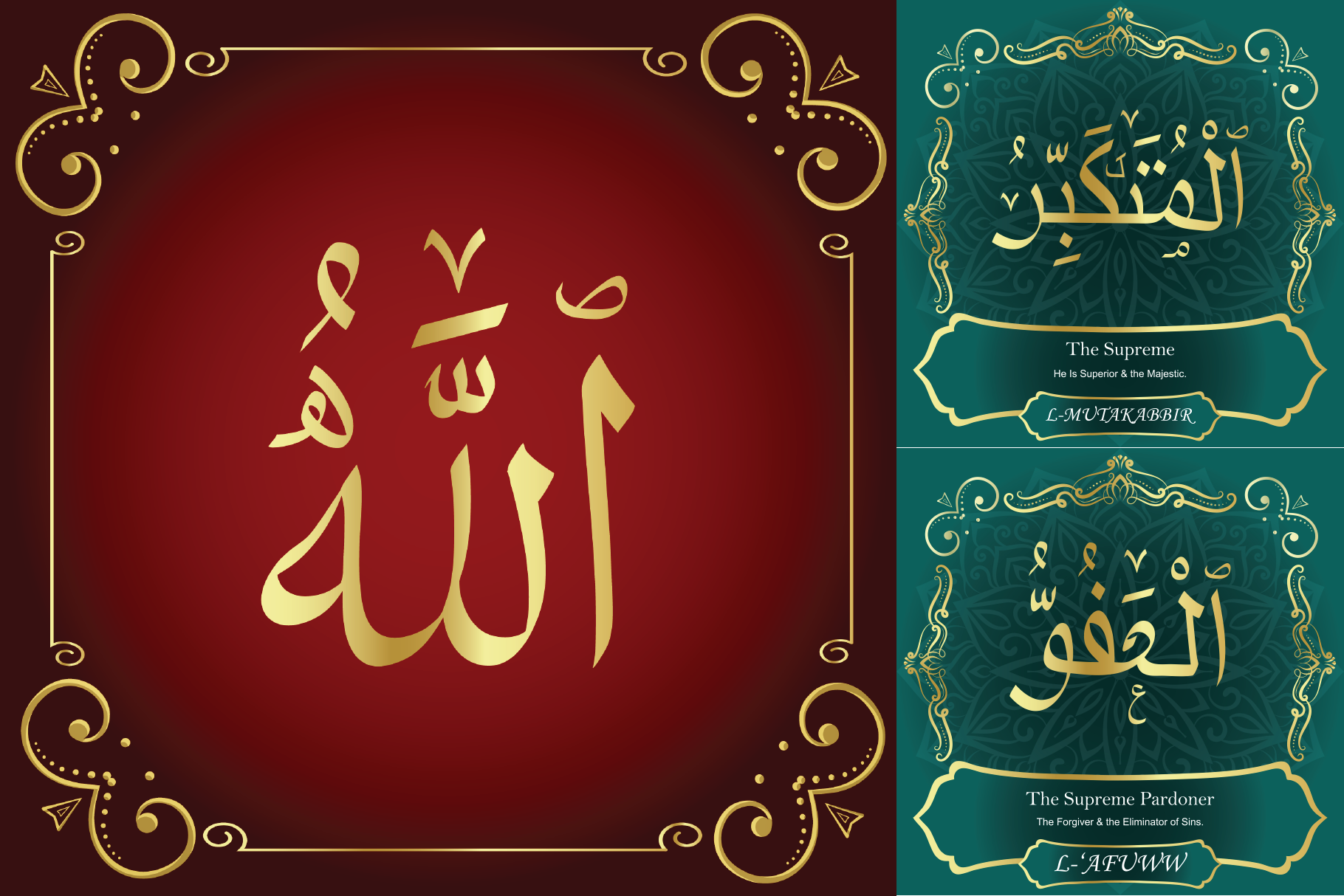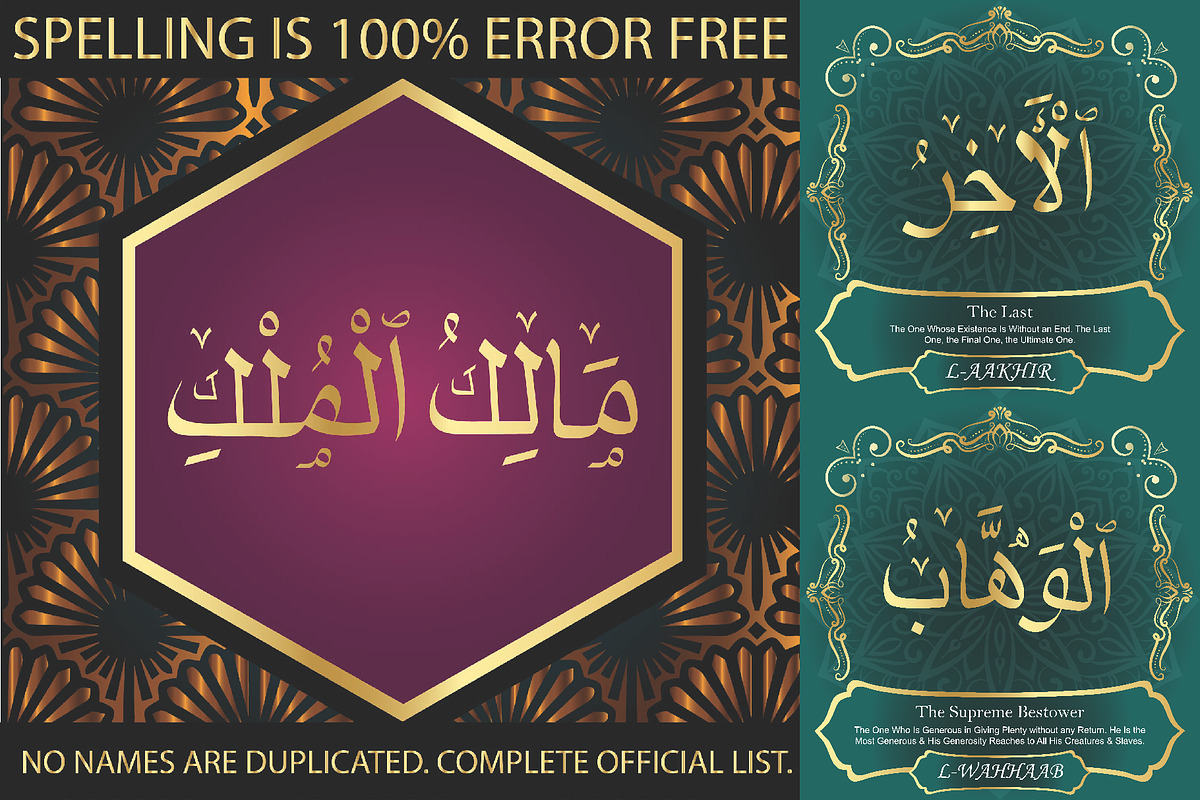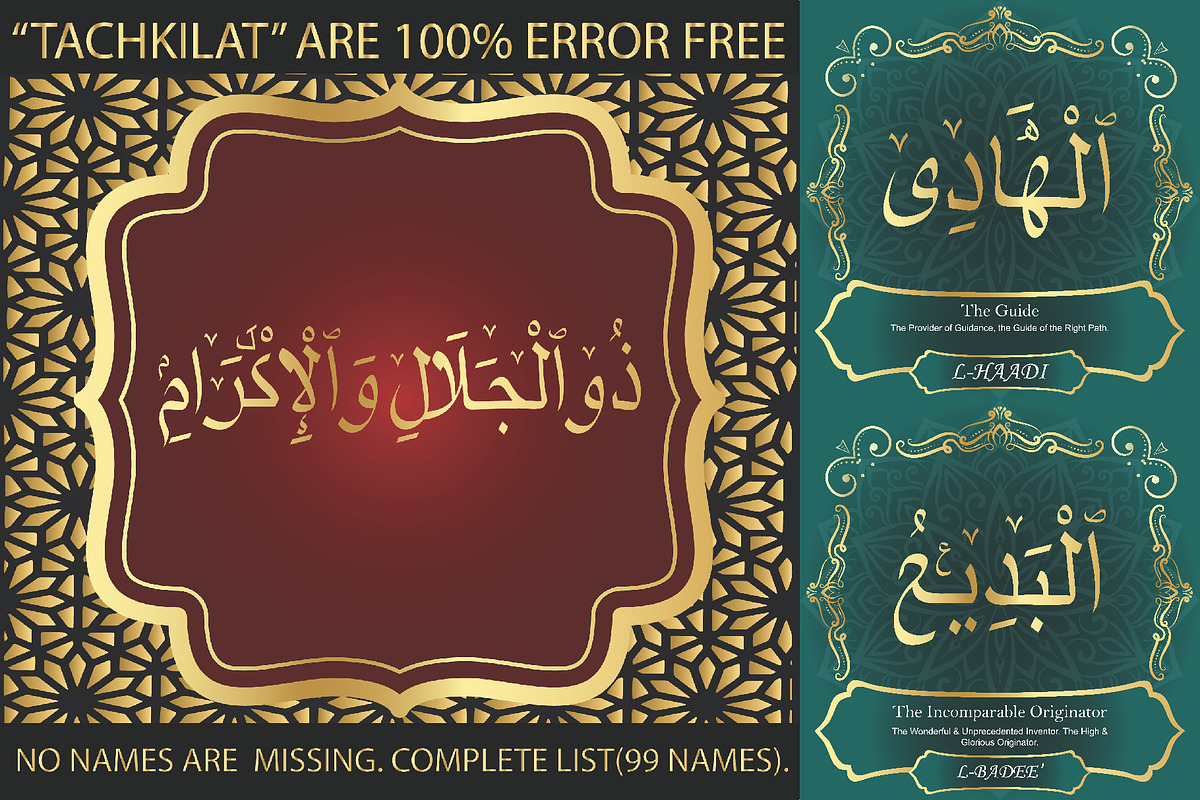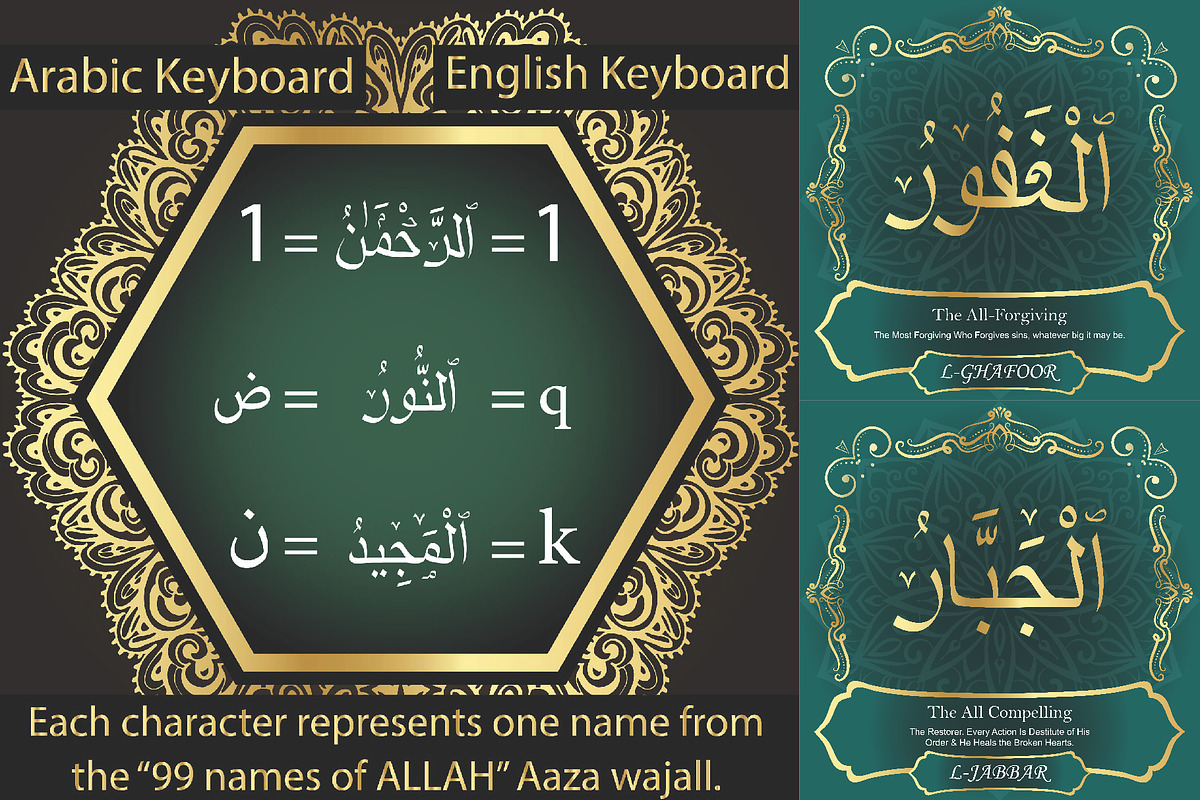
99 Names of ALLAH "Clear" Font
We have transformed the “99 names of ALLAH” into a font. That means each key on your keyboard represents 1 of the 99 names of ALLAH Aaza Wajal. The fonts work with both the English and Arabic Keyboards.
We call this Calligraphy "Clear" because of how clear and easy to read the design is. The first "Alef" has a "hamzit wasel", this indicates that you can pronounce it as both "AR-RAHMAAN" or "R-RAHMAAN" (in the zip file you will find a pdf file explaining the differences in the "harakat", pronunciation and spelling according to the Holy Quran). The "Ye" in this calligraphy doesn't have the two dots, nor does it have a decorative "Ye", just like the Holy Quran. Also, we went for the traditional "soukoun" instead of the Quranic "soukoun" & decorative symbols are at a minimum. In this Quranic format the name "ALLAH" doesn't have a small alef on the "chaddeh". And even though we haven't included a small "alef" as part of the decorative letters, we decided to add one to the best of names "ALLAH". This is not an error, nor it is a mistake. We consider the small “alef” on the name "ALLAH" to be part of the decorative design just like the small letters & symbols you see in the names. And to indicate that it is part of the design you will notice the "alef" on "AR-RAHMAAN" is slightly bigger than on the name "ALLAH". Decorative letters used in this calligraphy: "Mim, Aain, Sin, HHe, He, Kaf, Tah & Saad".
Purpose & use:
- Writers: Highlight the names in your texts in beautiful Islamic calligraphy.
- Editors: Use with kinetic typography templates (AE) & editing software.
- Designers: The very small details in the names does not affect the quality. Rest assured it is flawless.
The MOST IMPORTANT THING about this list is that all the names are 100% ERROR FREE, and you can USED THEM WITH YOUR EYES CLOSED. All the “Tachkilat” are 100% ERROR FREE, all the "Spelling" is 100% ERROR, and they all have been written in accordance with the Holy Quran. No names are missing and no names are duplicated. The list is complete "99 names +1". The +1 is the name “ALLAH” 'Aza wajal.
Another important thing is how we use the decorative letters. In every font you will see small decorative letters, these letters are used only in accordance with their respective letters to indicate pronunciation & we don't include them randomly. That means "mim" on top or below the letter "mim", "sin" on top or below the letter "sin", and so on and so forth.